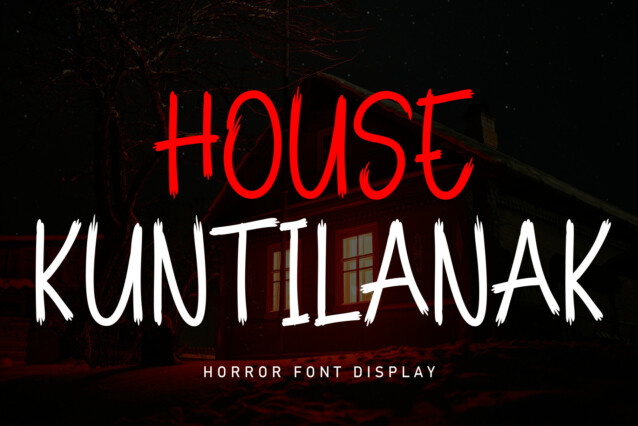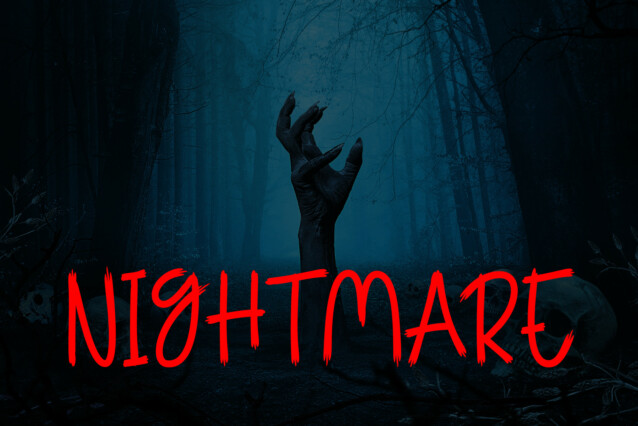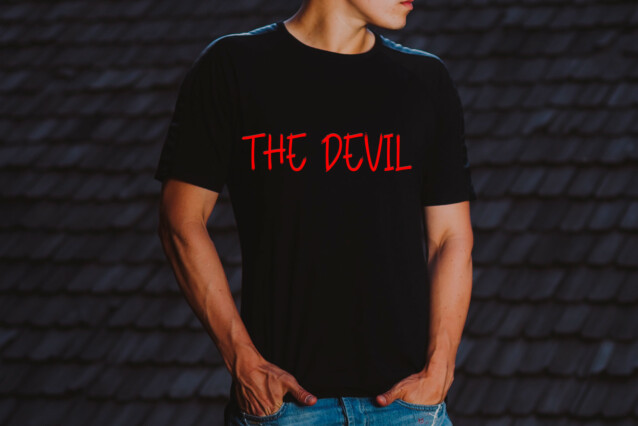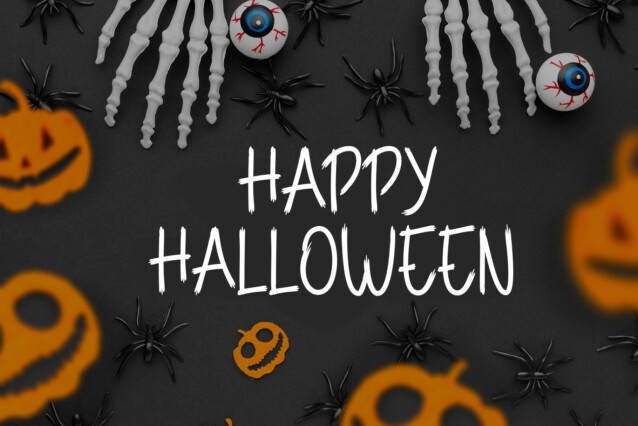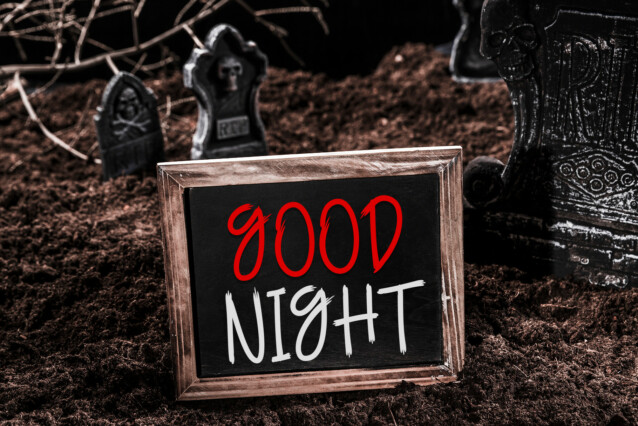
House Kuntilanak Display Font is a sweet and friendly handwritten display font. Cute and fun, this font is ideal for writing wedding invitations, cards, or any other design that might need a playful touch!